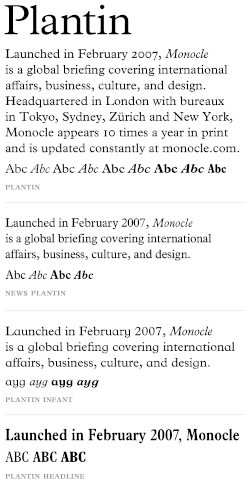
Plantin (typeface)
| Category | Serif |
|---|---|
| Classification | Old style serif |
| Designer(s) | Robert Granjon Frank Hinman Pierpont Fritz Stelzer |
| Foundry | Monotype |
| Date created | 1913 |
Plantin is an old-style serif typeface created in 1913 by the British Monotype Corporation for their hot metal typesetting system. Named after the sixteenth-century printer Christophe Plantin,[1] it is loosely based on a Gros Cicero roman type cut in the 16th century by Robert Granjon held in the collection of the Plantin–Moretus Museum in Antwerp.[2]
The intention behind the design of Plantin was to create a font with thicker letterforms than were often used at the time: early printing on absorbent book paper led to ink spread, but by 1913 innovations in smoothing and coated paper had led to reduced ink spread and made old types often look skeletal on paper.[3] Monotype engineering manager Frank Hinman Pierpont visited the Plantin-Moretus Museum, where he acquired a printed specimen of historic types.[4]
Plantin was one of the first Monotype Corporation revivals that was not simply a copy of a typeface already popular in British printing; it has proved popular since its release and has been digitised. Monotype followed it with revivals of many other classic typefaces in the 1920s and 30s.[1] Plantin would later also be used as one of the main models for the creation of Times New Roman in the 1930s.[5] The Plantin family includes regular, light and bold weights, along with corresponding italics.
Inspiration
At the time Plantin was released, Monotype's hot metal typesetting system, which cast new type for each printing job, was developing a reputation for practicality in trade and mass-market printing, but the designs offered by Monotype were relatively basic choices, such as a "modern" face, an "old style" and a Clarendon.[1]
James Moran and John Dreyfus suggested that an inspiration for the design may have been a c. 1910 family from the Shanks foundry known as "Plantin Old Style", advertised as highly legible.[6] This was actually a bold design based on Caslon, with no connection to Christophe Plantin or Granjon, but Dreyfus suggests it may have prompted Monotype to research Christophe Plantin and the collection of the Plantin-Moretus Museum.[7]
The Plantin-Moretus Museum was created in 1876 from Plantin's collection which had been preserved and added to by his successors in business. It is notable as the world's largest collection of sixteenth century typefaces.[8] Although Plantin commissioned types from Granjon, according to Hendrik Vervliet the specific type Pierpont's design was based on began to be used by the Plantin-Moretus Press only in the 18th century, after Plantin had died and his press had been inherited by the Moretus family.[9] (It has been reported that Plantin did use the long letters of the type as replacement letters to cast a type by Garamond shorter height, but Vervliet suggests that these may have been a set of slightly different characters cut by Granjon separately.[9][3][4][10])
Plantin was designed and engraved into metal at the Monotype factory in Salfords, Surrey, which was led by Pierpont and draughtsman Fritz Stelzer. Both were recruits to Monotype from the German printing industry.
The choice to revive a French Renaissance design was unusual for the time, since most British fine printers of the period preferred either Caslon or revivals of the fifteenth-century style of Nicolas Jenson (recognisable from the tilted 'e'), following the lead of William Morris's Golden Type, both of which Monotype would also develop revivals of.[1] However, other revivals of Aldine/French renaissance typefaces followed from several hot metal typesetting companies in the following decades, including Monotype's own Poliphilus, Bembo and Garamond, Linotype's Granjon and Estienne and others, becoming very popular in book printing for body text.
Design
The design for Plantin preserved the large x-height of Granjon's designs, but shortened the ascenders and descenders and enlarged the counters of the lowercase 'a' and 'e'.[4] Not all the letters were Granjon's: the letters 'J', 'U' and 'W', not used in French in the sixteenth century, were not his, and a different 'a' in an eighteenth-century style had been substituted into the font by the time the specimen sheet was printed.[9][11][12][13]
The 1742 specimen of Claude Lamesle (notable for its printing quality) provides a specimen of the Granjon type in its original state.[14][9] Mosley has close-up images of some characters of the face.[12][a]
Reception and usage
With its relatively robust, solid design compared to the Didone and "Modernised Old Style" faces popular in the early twentieth century (which Monotype already had made versions of), Plantin proved popular and was often particularly used by trade and newspaper printers using poor-quality paper in the metal type period and beyond. Monotype's advertising emphasised its popularity with advertisers, highlighting its use in the "Mrs Rawlins" series of adverts for washing starch.[16][17][18][19] As the basic font is relatively dark on the page, Monotype offered a 'light' version as well as a bold, which Hugh Williamson describes as "particularly suitable for bookwork."[20]
During the interwar period the face was adopted and popularized by Francis Meynell's Pelican Press and by C. W. Hobson's Cloister press, and also used occasionally by Cambridge University Press.[4] A custom version, "Nonesuch Plantin" was also cut for Meynell's Nonesuch Press, one of the first fine printers to use Monotype machines, with extended ascenders and descenders on the lower-case.[21] Type designer Walter Tracy noted that this changed the type's appearance to a surprising extent: "it look[s] not only more refined but as if it derived from another period: Fournier's, say [in the eighteenth century], not Granjon's."[22] It was appropriately used by the Bodley Head to print Meynell's autobiography.[23] Monotype also created a condensed version, News Plantin, for The Observer in the late 1970s.[24][1] An infant variety of the typeface called Plantin Infant also exists,[25] with single-story versions of the letters 'a' and 'g' and a 'y' with two straight sides.